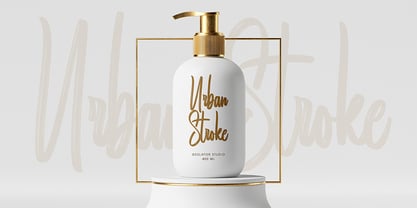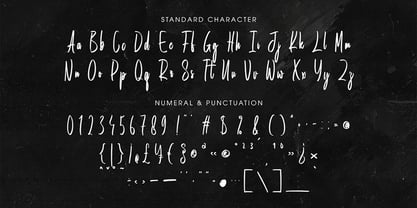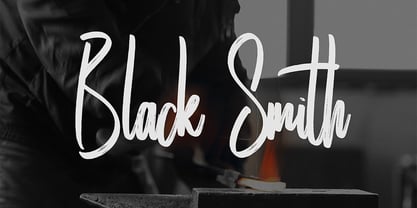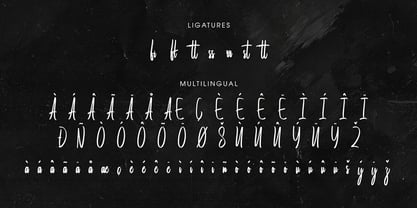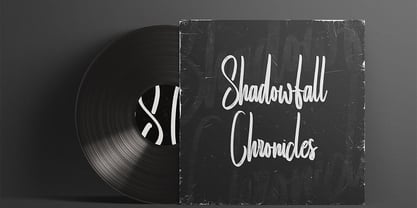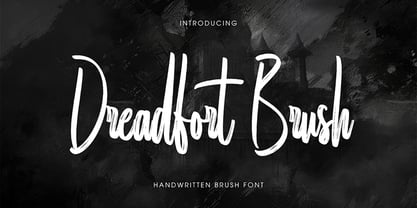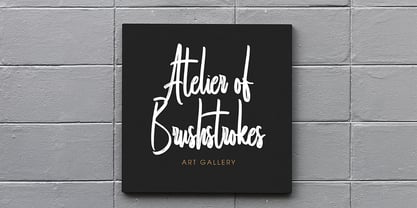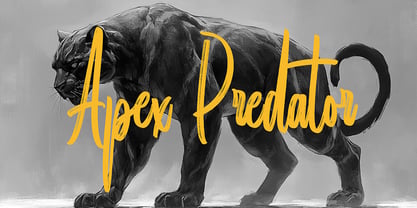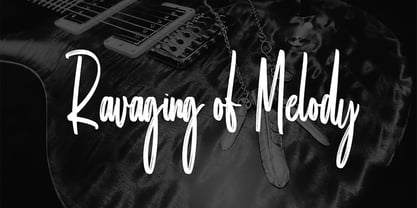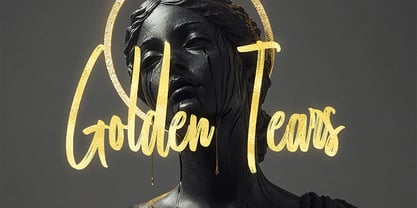
Dreadfort Brush
by Geelator Studio
The Dreadfort Brush Font Family was designed by Gilang Tito Dharmawan and published by Geelator Studio. Dreadfort Brush contains 1 styles. More about this family
Inject a raw, edgy attitude into your projects with "Dreadfort Brush," a handwritten font with a powerful brush-stroke style. Despite its fierce look, this versatile font is perfect for a wide range of applications, from bold headlines and logos to merchandise and album art, giving your designs a striking and unforgettable presence. This font isn't just a typeface; it's a statement, ensuring your work has a striking and unforgettable presence.
Designers: Gilang Tito Dharmawan
Foundry: Geelator Studio